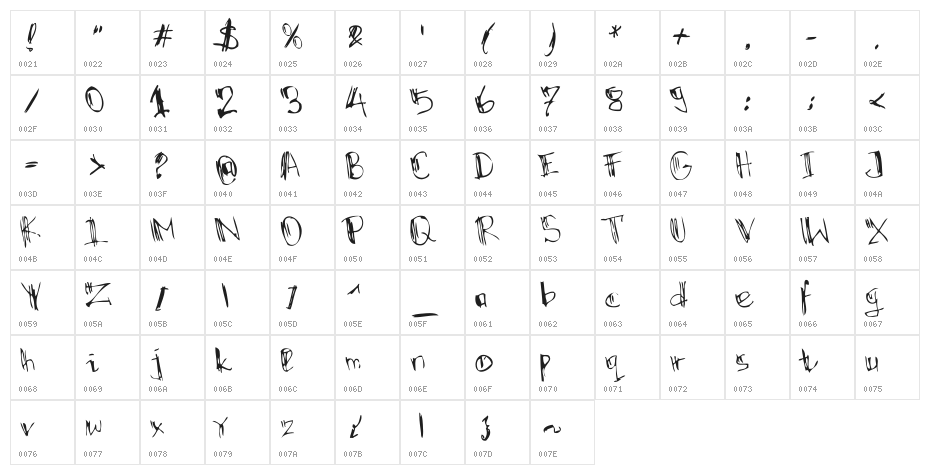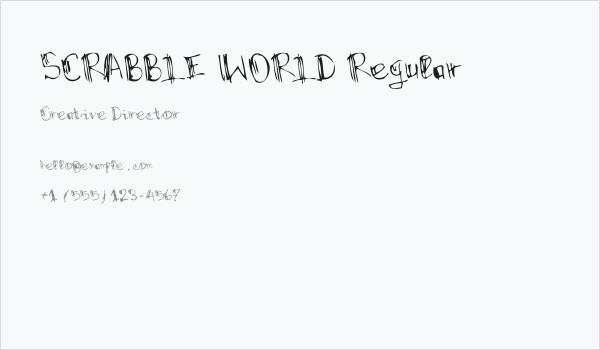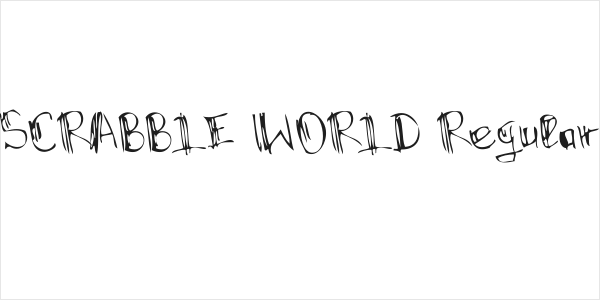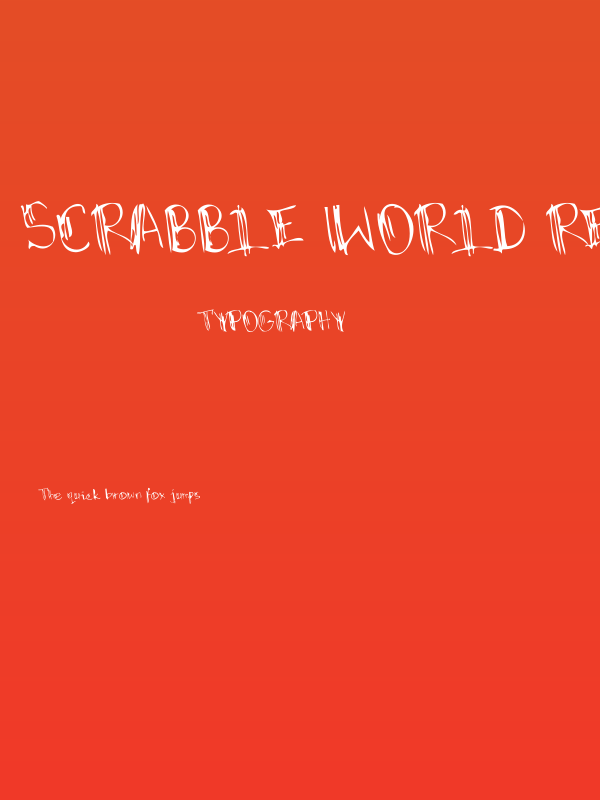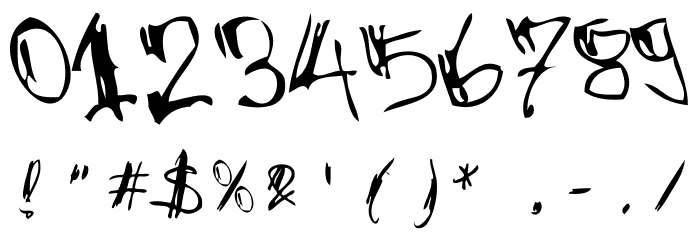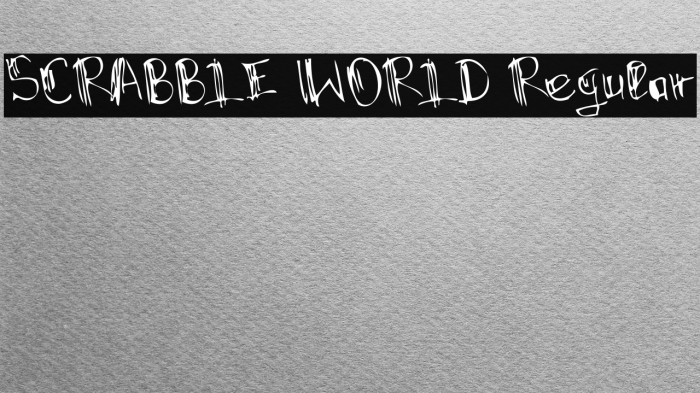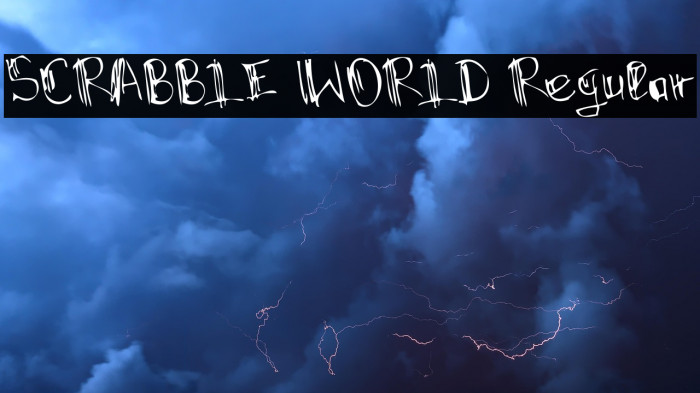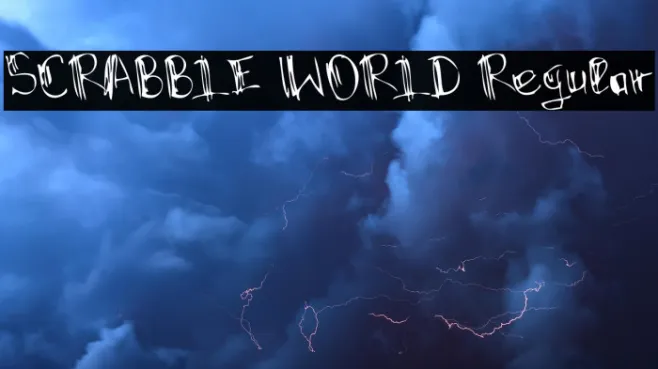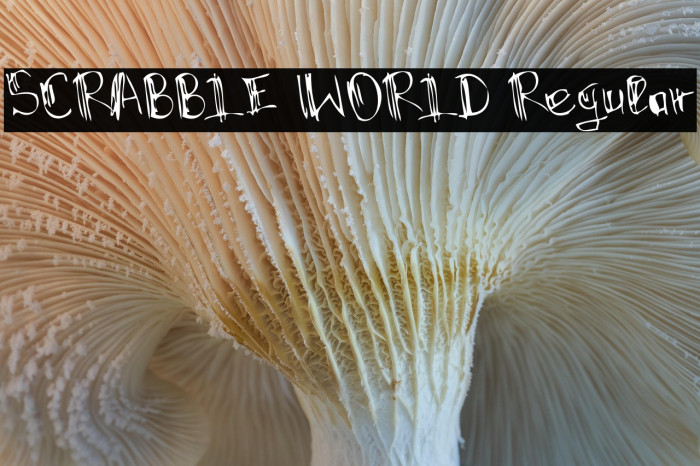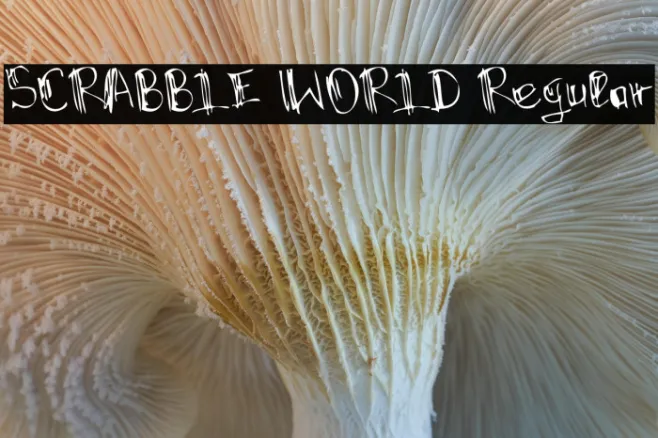
SCRABBLE WORLD Regular Font
SCRABBLE WORLD Regular Description
This font features an expressive and dynamic style, characterized by its irregular, hand-drawn appearance. The letters have a rough, sketch-like quality, with varying line thicknesses that give it a raw and energetic feel. The uppercase and lowercase letters maintain a consistent aesthetic, with exaggerated curves and angles that add to its unique charm. Numbers and special characters follow the same artistic approach, making the font suitable for creative and unconventional projects. Its distinctive style makes it stand out, offering a sense of movement and spontaneity.